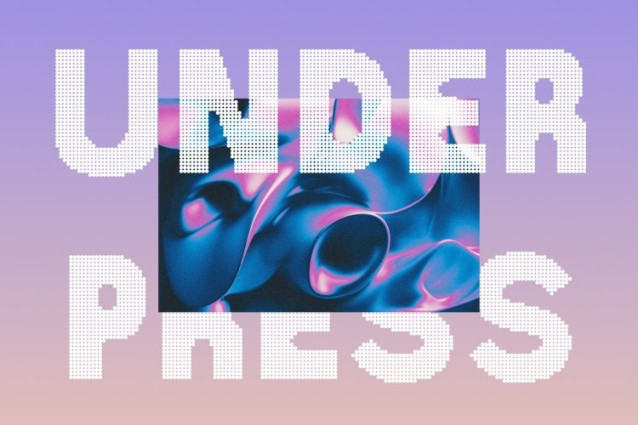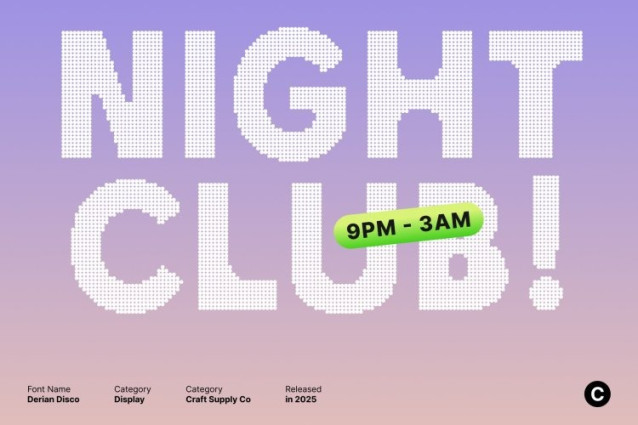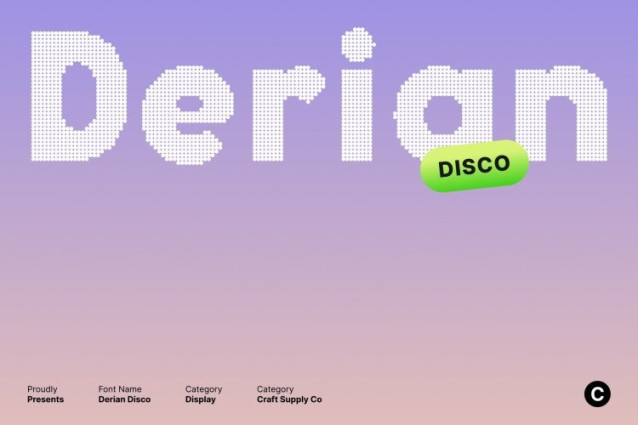
Derian Disco Font
Derian Disco Font This is a bold sans serif font designed to make a statement. Its robust, well-defined shapes deliver strength and prominence, ensuring that every title or headline captures attention immediately. The clean, modern structure enhances readability while maintaining a commanding visual presence.
Disco Effects for Brightness and Shine
Enhanced with disco-inspired effects, adds shimmer, sparkle, and dynamic vibration to each character. This sparkling detail brings energy, glamour, and liveliness to your typography, making it perfect for party invitations, event posters, and festive designs.
Perfect for Titles and Party-Themed Designs
Designed for display use, excels in contexts where visibility and impact are essential. From bold headlines to eye-catching party promotions, this font provides a luminous and captivating focal point, ensuring your design stands out in vibrant, high-energy environments.
Bright, Stylish, and Expressive
This font combines bold sans serif structure with disco sparkle to create a typeface that feels modern, fun, and celebratory. Its luminous, prominent appearance makes it ideal for designers aiming to deliver stylish, energetic, and visually striking designs with a festive flair.